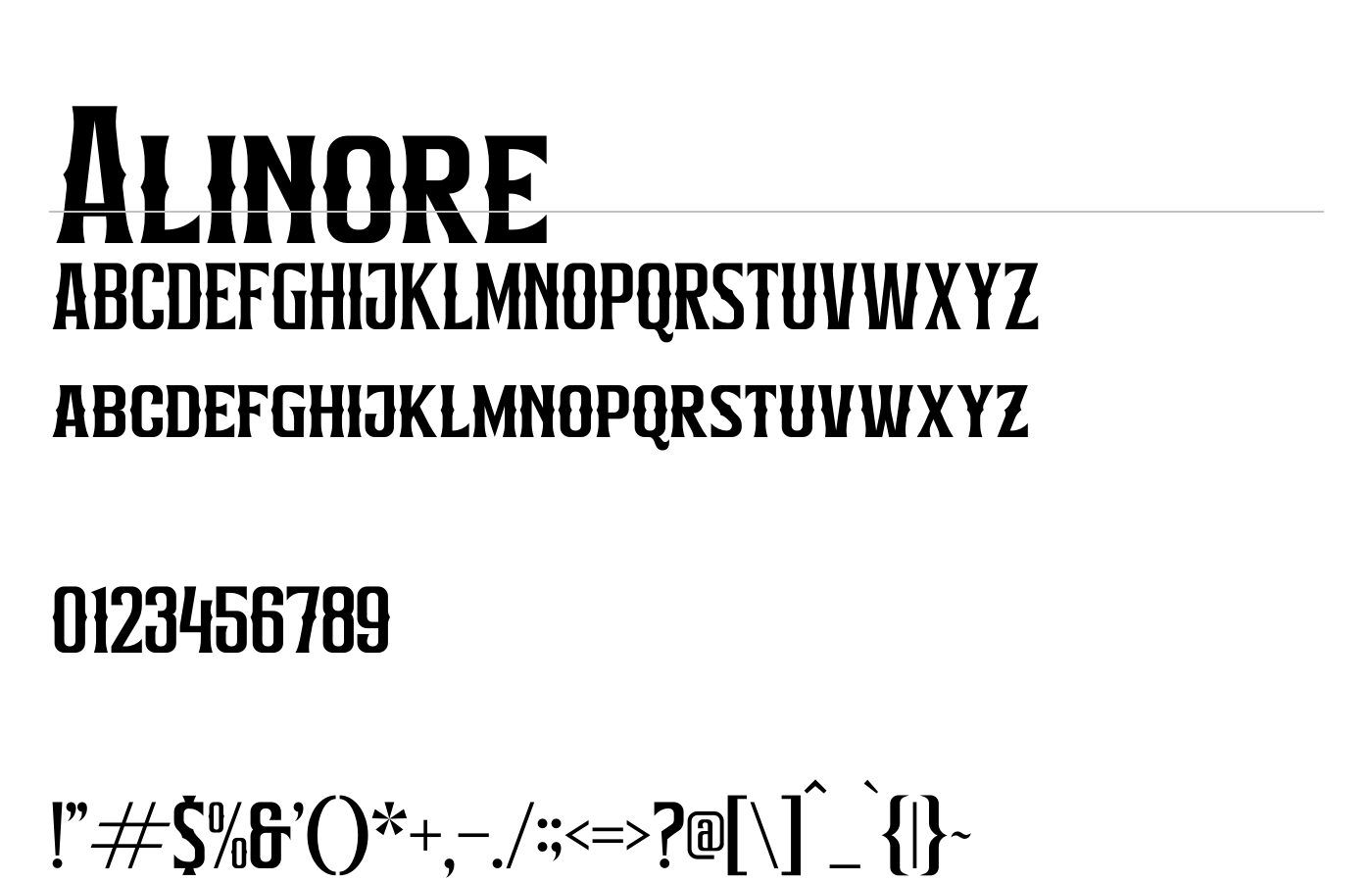
Alinore is a bold, narrow serif font with a strong vertical emphasis and high contrast between thick and thin strokes, giving it a striking, vintage western vibe. Its tall, condensed letterforms with sharp, bracketed serifs make it ideal for eye-catching headlines, branding, or packaging where a dramatic and authoritative look is desired. This font works particularly well for projects aiming to convey strength, tradition, and bold style.
Alinore Font
About Alinore Font